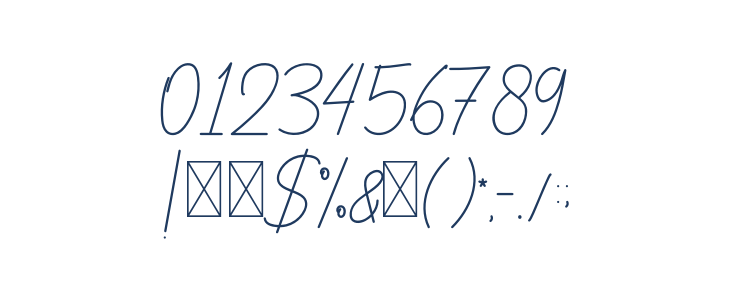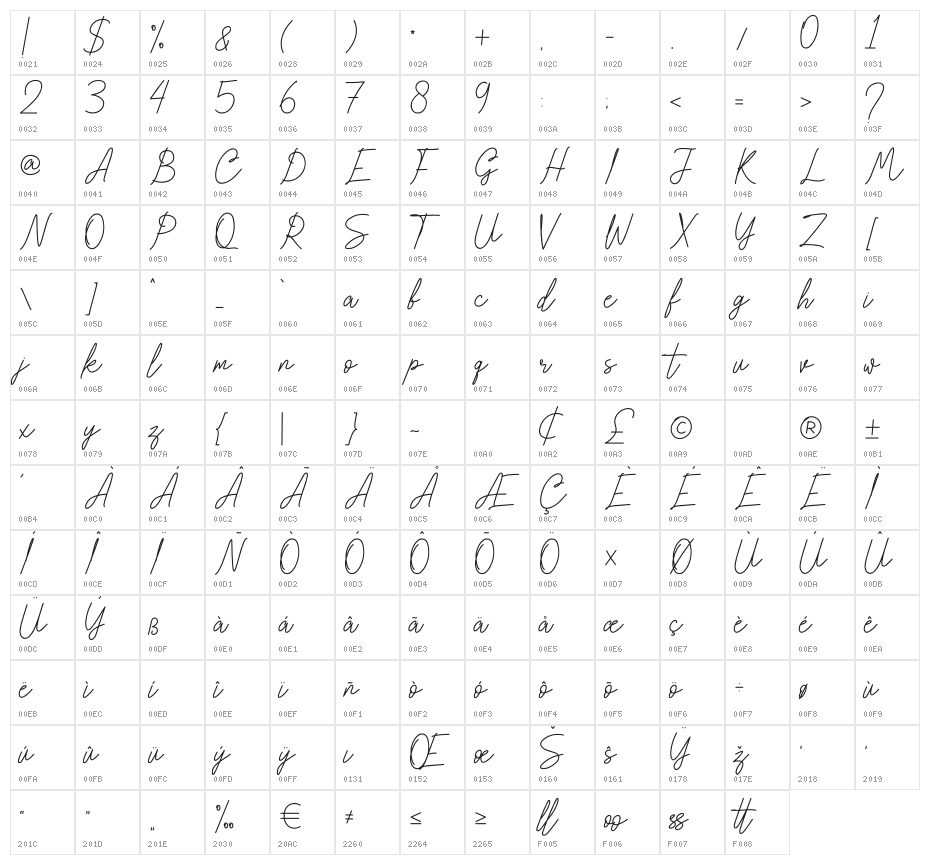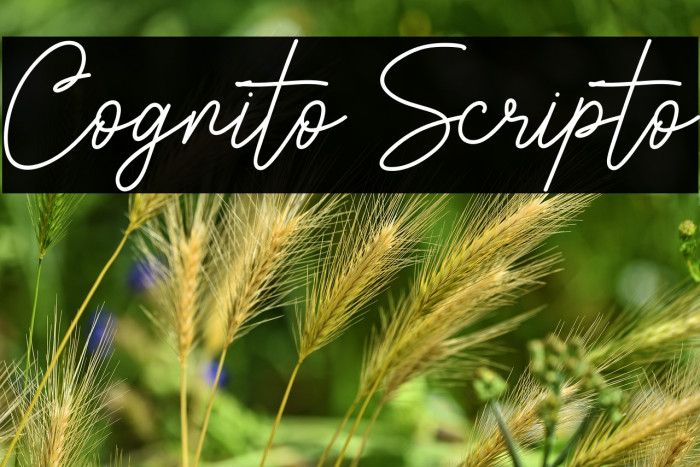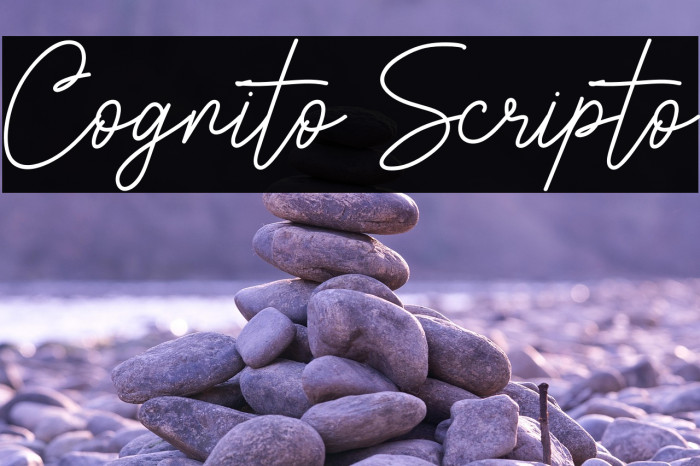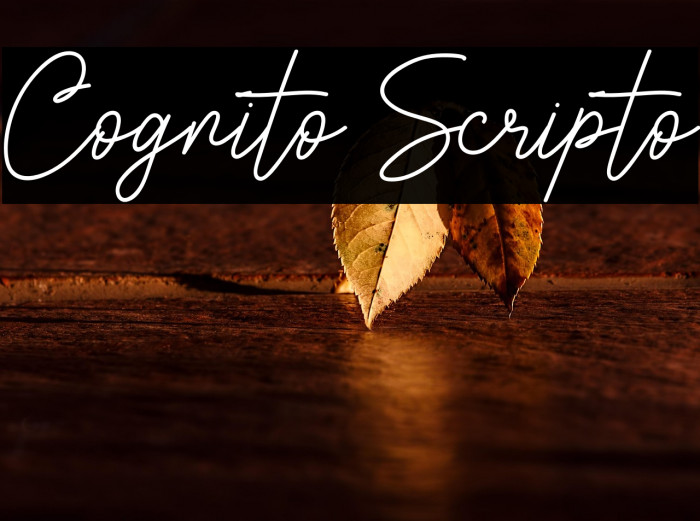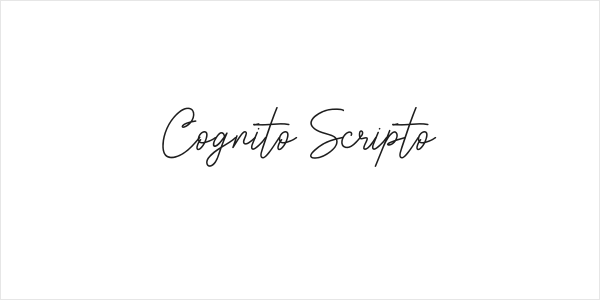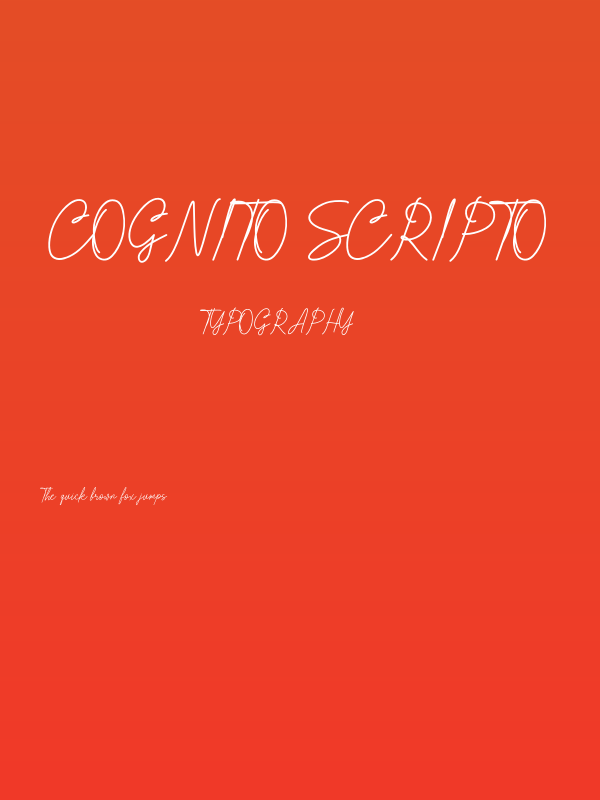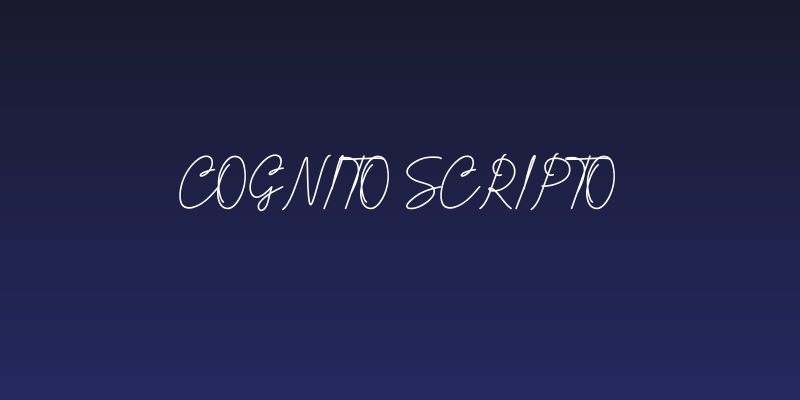
Cognito Scripto Font
Cognito Scripto Description
This font features a fluid, cursive style that mimics the elegance of handwritten script. The uppercase letters are tall and slightly slanted, with smooth curves and a consistent flow that gives a sense of movement. The lowercase letters maintain a similar style, with elongated ascenders and descenders that add to the font's graceful appearance. Numbers are designed with the same fluidity, ensuring a cohesive look across all characters. The special characters are integrated seamlessly, maintaining the overall aesthetic. This font is ideal for projects that require a personal touch, such as invitations, greeting cards, or branding materials that aim to convey sophistication and elegance.